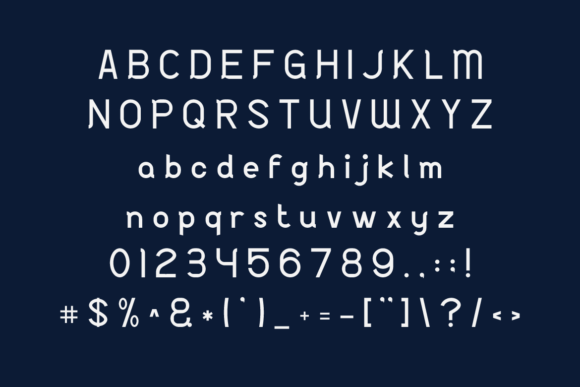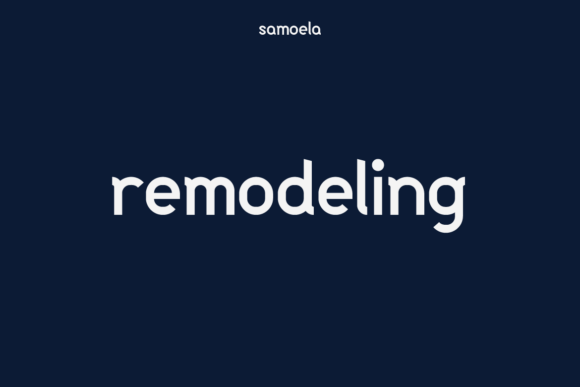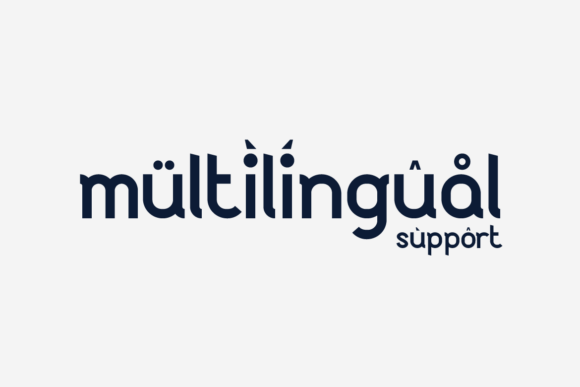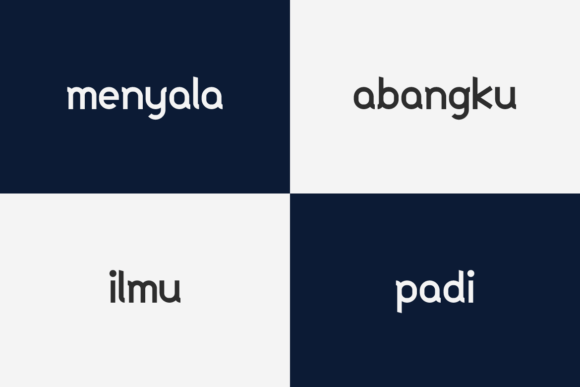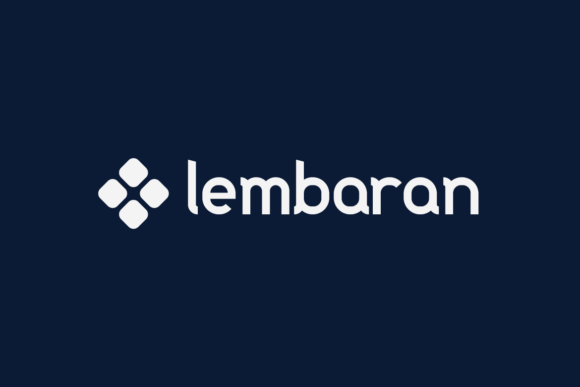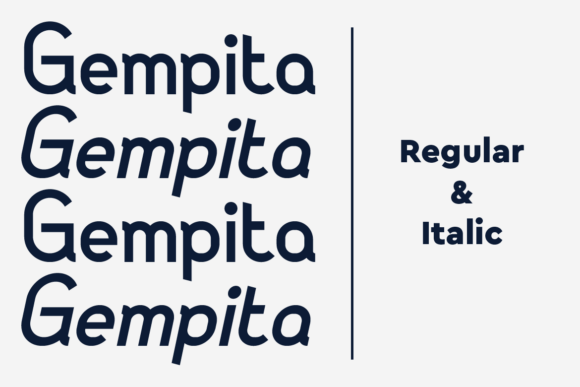
Introduction to Samoela Font
Have you ever found yourself stuck in a design rut, struggling to find the perfect font to elevate your creative project? I know I have. It was on one of those frustrating days that I stumbled upon the sleek and modern Samoela Font. Its clean lines, balanced proportions, and smooth curves immediately caught my attention, and I knew I had to learn more.
The Samoela Font is a high-quality design resource that’s perfect for designers looking to add a touch of elegance to their work. With its versatility and contemporary look, it’s no wonder this font has become a favorite among creatives. Whether you’re working on a branding project, creating editorial layouts, or designing web pages, Samoela Font is a valuable asset to have in your design arsenal.
Key Features of Samoela Font
- High-quality, free font perfect for creative projects
- Comes in a transparent background design, ideal for use on various backgrounds
- Designed with a unique and modern aesthetic, making it a valuable design resource
- Perfect for use in graphic design, digital art, and other creative projects
Honest Review: Samoela Font
As a designer, I’m always on the lookout for high-quality design resources to enhance my creative projects. Recently, I came across the Samoela Font, and I’m excited to share my honest review with you.
Here’s what works well: ✨ The font’s unique, elegant design makes it perfect for creating sophisticated and modern compositions. Its versatility is a major plus, allowing it to be used in a variety of contexts, from headings to body text. The font’s transparent background also makes it easy to layer and combine with other design elements.
However, there are a few limitations to consider: ⚠️ The font’s aesthetic may not be to everyone’s taste, and some users may find it too minimalist. Additionally, the font’s range is limited, with only a few styles available for download.
Overall, I’m impressed with the Samoela Font, and I think it’s a valuable addition to any designer’s toolkit. While it may not be perfect for every project, it’s definitely worth considering for those looking for a high-quality, free design resource.
Tips for Getting the Most Out of Samoela Font
To get the most out of the Samoela Font, experiment with different font sizes, colors, and styles. Combine it with other design elements to create a visually appealing design. Use it in a variety of creative projects, such as brochures, posters, and social media graphics.
The Samoela Font is commonly used in design projects that require a modern and elegant look. It’s perfect for creating titles, headings, and body text in various industries, including fashion, beauty, and lifestyle.